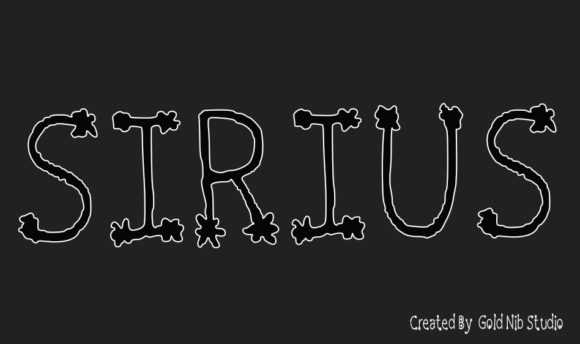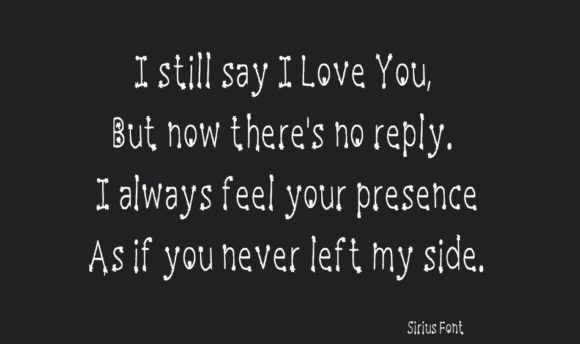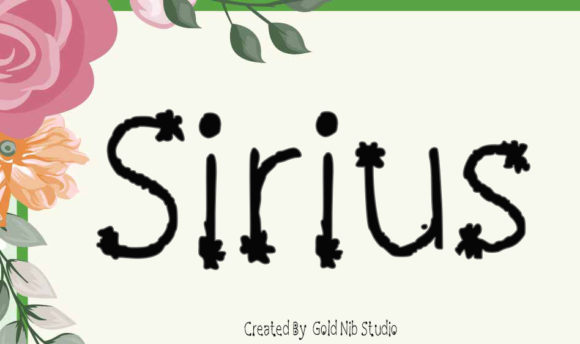
Sirius Font
About Sirius Font
Sirius is a sweet handwritten font designed to add charm and a touch of playfulness to a variety of creative projects. With its beautiful and well-balanced characters, Sirius is versatile and suitable for a range of cute design ideas. Whether you’re working on a logotype, headline font, corporate identity, brand identity, apparel industry, poster, music, movie, game, magazine, book, comic, cartoon, YouTube, Instagram, website, or any other creative design projects, Sirius aims to enhance the visual appeal with its sweet and endearing style.
The handwritten quality of Sirius imparts a sense of authenticity and warmth to your text, making it particularly suitable for projects where a personal and friendly touch is desired. Its versatility allows it to adapt to various design contexts, making it a valuable asset for a wide range of creative endeavors.
Sirius is well-suited for logotypes and headlines, where its sweet and well-balanced characters can help create a distinctive and memorable visual identity. Additionally, its application spans across different industries, from apparel to entertainment, making it a versatile choice for designers working on diverse projects.
Whether you’re designing for print or digital media, Sirius can seamlessly integrate into your creative vision, adding a sweet and charming element to your designs. Its suitability for social media, websites, and various branding materials further extends its usability in modern design applications.
In summary, Sirius is more than just a font; it’s a sweet and versatile handwritten typeface that enhances the visual appeal of your designs. With its well-balanced characters and charming style, Sirius is a valuable tool for designers looking to infuse their creative projects with a touch of warmth and playfulness. Consider incorporating Sirius into your next design project and let its sweet handwritten charm elevate your visual storytelling.